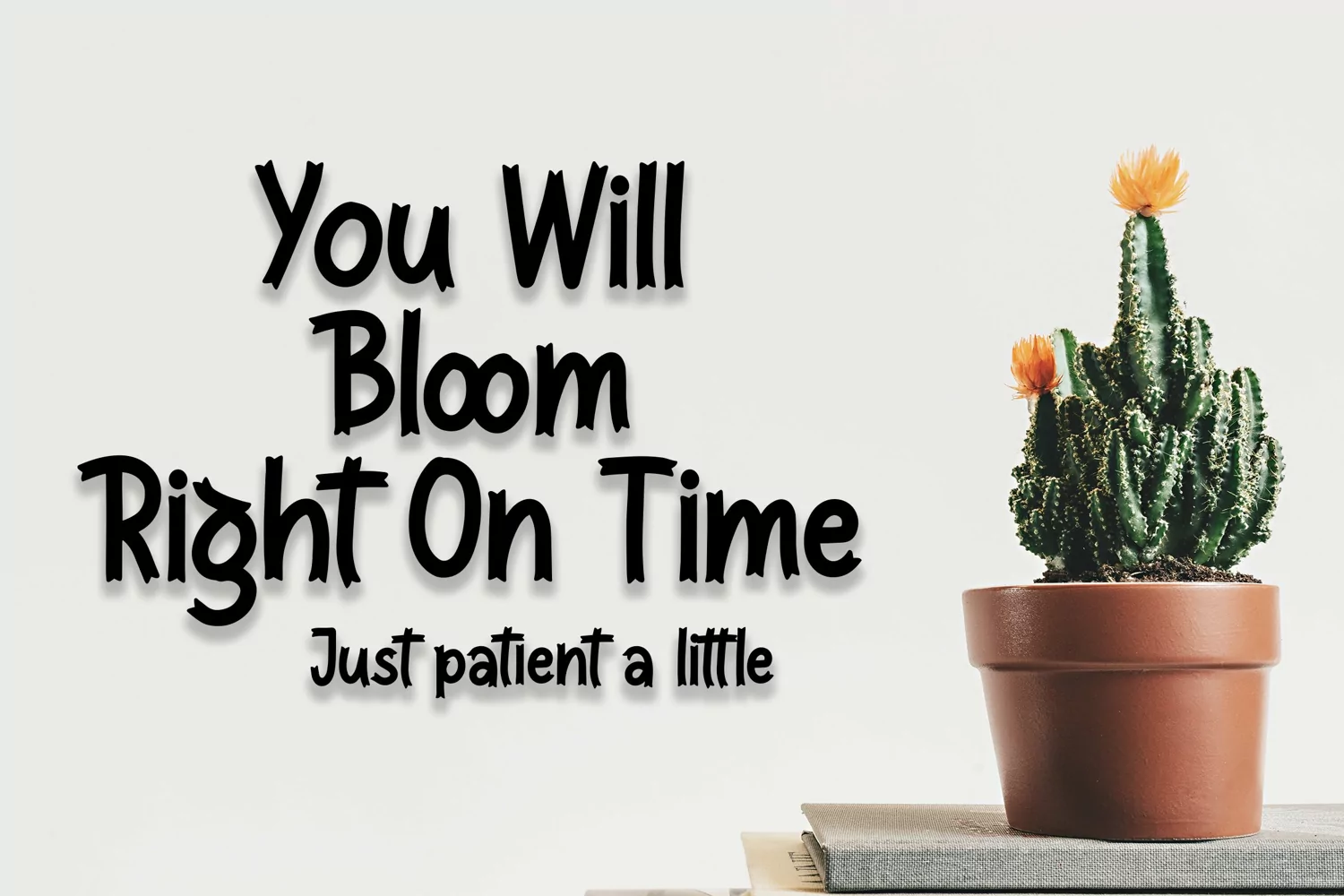
Planties - Quirky Handrawn Font that contain lowercase, uppercase, symbol, and also support multi language. There’s a lot ligatures in this font. This Font also comes with ligatures, alternates and many more. this font suitable for fashion, branding, catalog and other design what you want.